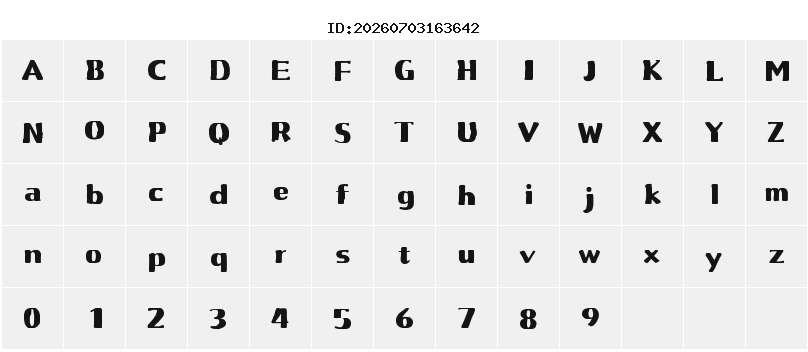
428-上首石头体 Preview
• Font Name: 428-上首石头体
• Font ID: 428-上首石头体
• Full Font Name: 428-上首石头体
• Version: Version 4.00 April 1, 2026
• PostScript Name: 428-SSShiTouTi
• Character Count: 7603
• Manufacturer: 上首造字
About 428-上首石头体.ttf
428-上首石头体.ttf is a modern, elegant sans-serif font designed for ultimate readability and visual harmony. Perfect for branding, headlines, web design, and print materials.